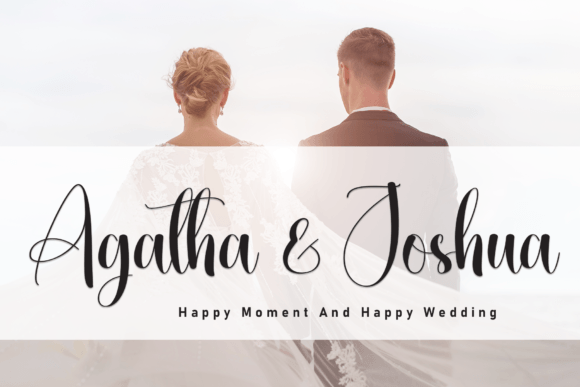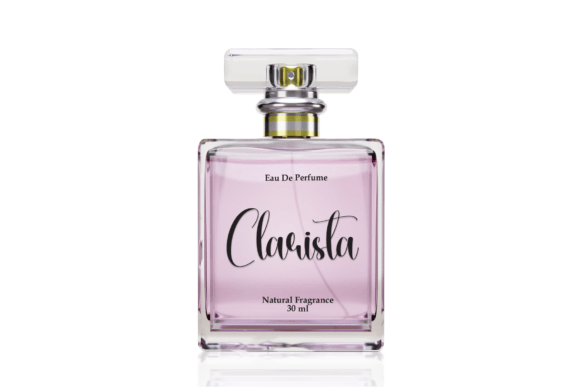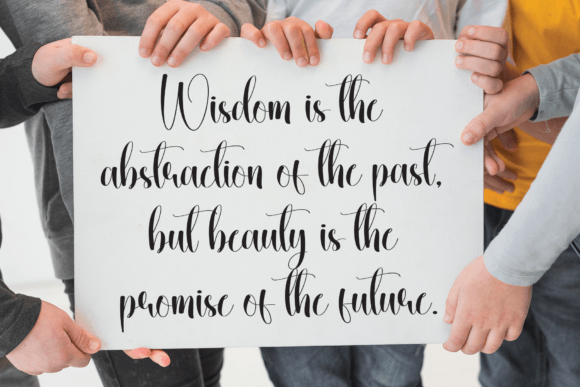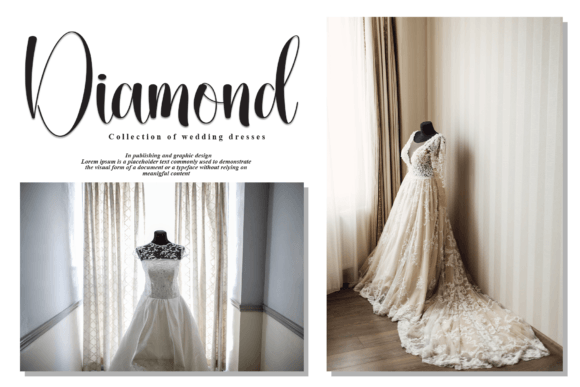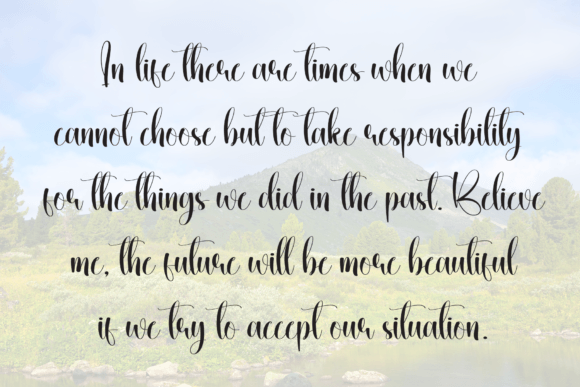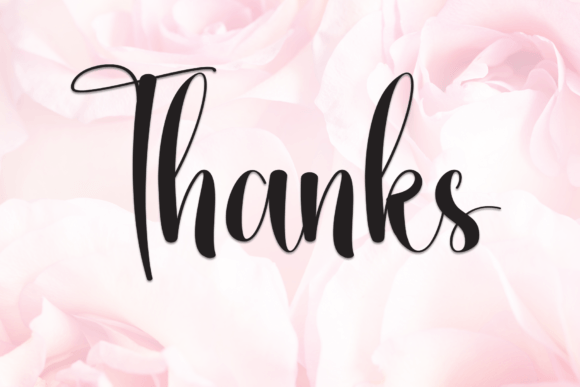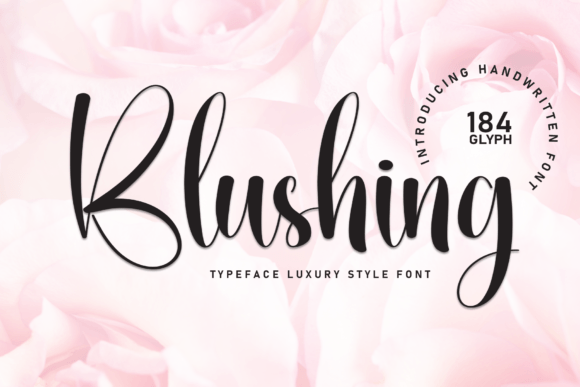
Introducing Blushing Font: The Epitome of Elegance and Sophistication
Are you a designer or crafter looking for a font that exudes style, elegance, and a touch of whimsy? Look no further than Blushing Font, a beautiful script font that is sure to elevate your designs to new heights. In this article, we’ll take a closer look at Blushing Font, its features, and how you can use it to create stunning designs that leave a lasting impression.
What is Blushing Font?
Blushing Font is a stylish and incredibly elegant script font that is perfect for adding a touch of sophistication to your designs. With its flowing curves and delicate lines, this font is sure to capture the attention of your audience and leave a lasting impression. Whether you’re designing wedding invitations, thank you cards, quotes, greeting cards, logos, or business cards, Blushing Font is the perfect choice.
Features of Blushing Font
So, what makes Blushing Font so special? Here are just a few of its key features:
- Elegant and sophisticated: Blushing Font is designed to exude elegance and sophistication, making it perfect for designs that require a touch of class.
- Handwritten touch: With its flowing curves and delicate lines, Blushing Font has a beautiful handwritten touch that is sure to add a personal touch to your designs.
- Versatile: Blushing Font is incredibly versatile and can be used for a wide range of designs, from wedding invitations to business cards.
- Easy to read: Despite its elegant and cursive nature, Blushing Font is incredibly easy to read, making it perfect for designs that require a clear and concise message.
Uses of Blushing Font
So, how can you use Blushing Font in your designs? Here are just a few ideas to get you started:
- Wedding invitations: Blushing Font is perfect for wedding invitations, adding a touch of elegance and sophistication to your designs.
- Thank you cards: Whether you’re designing thank you cards for a wedding, birthday, or other occasion, Blushing Font is a great choice.
- Quotes: Add a touch of elegance to your quotes with Blushing Font, making them perfect for social media, blogs, or other designs.
- Greeting cards: From birthday cards to Christmas cards, Blushing Font is perfect for adding a personal touch to your greeting cards.
- Logos: If you’re looking for a font that exudes elegance and sophistication, Blushing Font is a great choice for your logo designs.
- Business cards: Add a touch of class to your business cards with Blushing Font, making them perfect for networking events or conferences.
Tips for Using Blushing Font
Here are a few tips for using Blushing Font in your designs:
- Pair with a sans-serif font: For a beautiful contrast, pair Blushing Font with a sans-serif font, such as Arial or Helvetica.
- Use a subtle color scheme: Blushing Font looks stunning in a subtle color scheme, such as pastel colors or neutral tones.
- Experiment with sizes: Don’t be afraid to experiment with different sizes of Blushing Font, from large and bold to small and delicate.
In conclusion, Blushing Font is a beautiful and elegant script font that is perfect for designers and crafters looking to add a touch of sophistication to their designs. With its flowing curves, delicate lines, and handwritten touch, Blushing Font is sure to capture the attention of your audience and leave a lasting impression. Whether you’re designing wedding invitations, thank you cards, quotes, greeting cards, logos, or business cards, Blushing Font is the perfect choice.